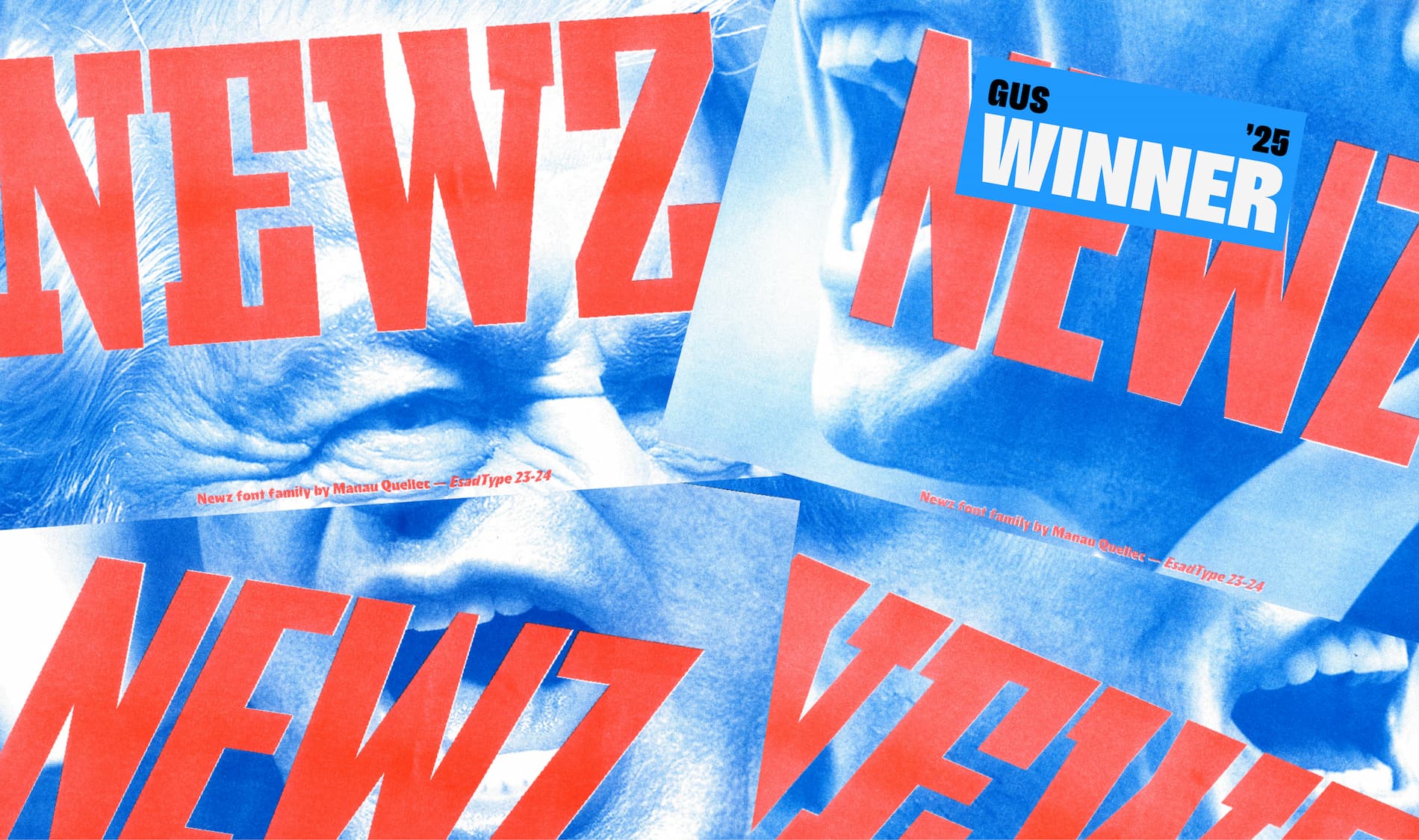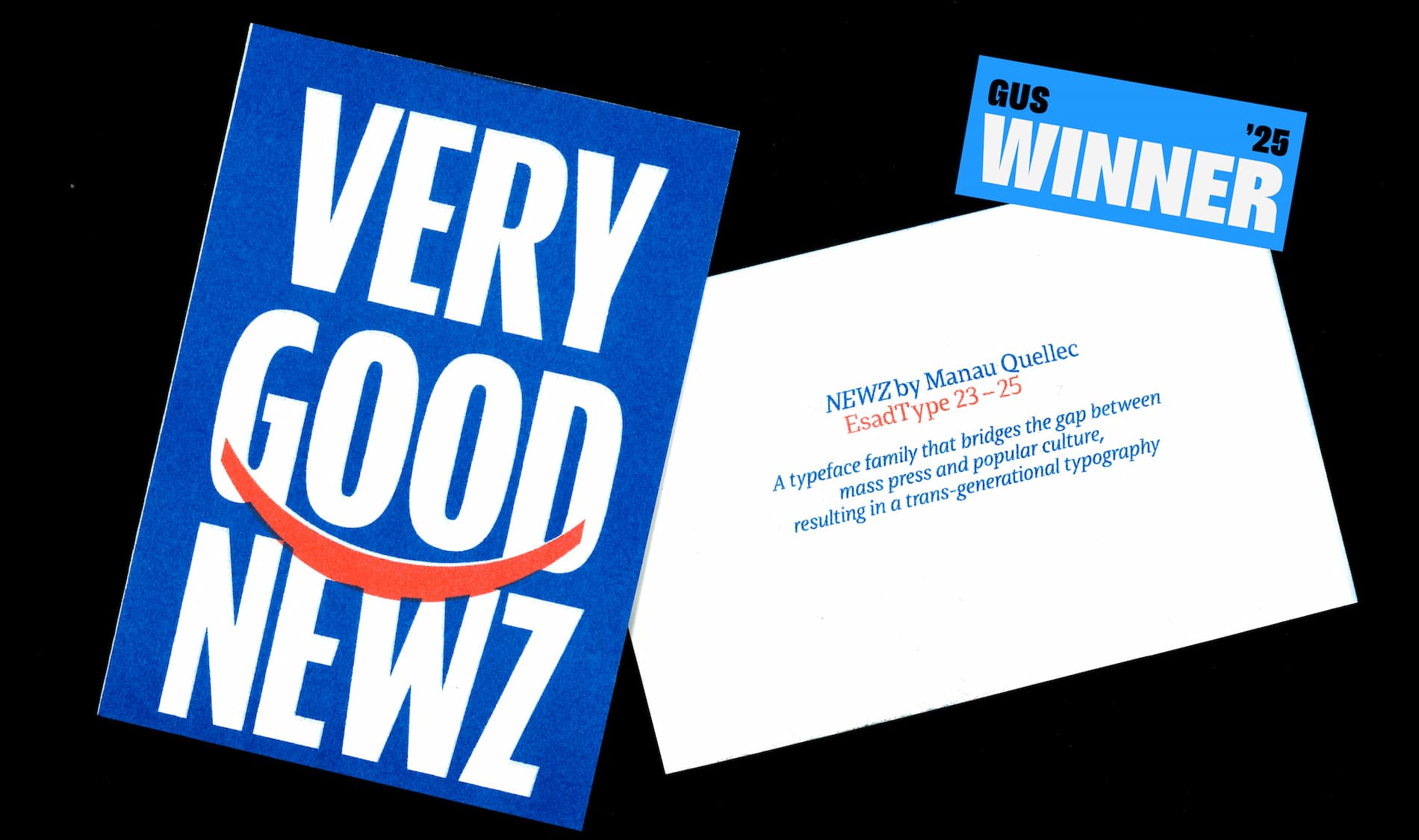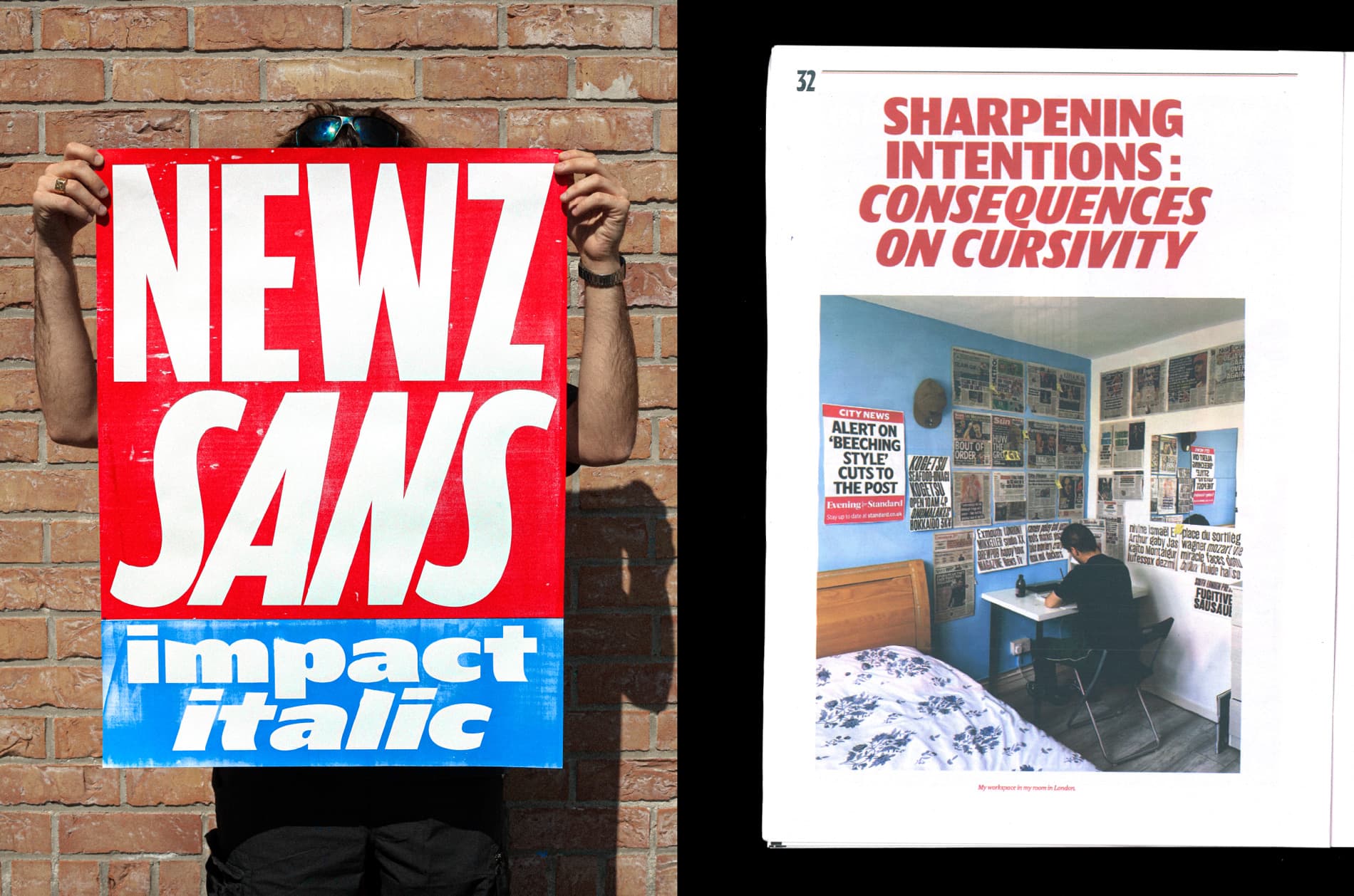
TypeTogether is happy to announce the 2025 Gerard Unger Scholarship winner: the Newz font family by French native Manau Quellec from the EsadType post-diploma programme. “Newz is a powerhouse editorial type family that demonstrates strong potential both conceptually and in its quality of execution and craftsmanship,” said Veronika. This full-range family will easily produce modern magazines, trending weeklies, statement look books, annual reports, posters, and many other publications.